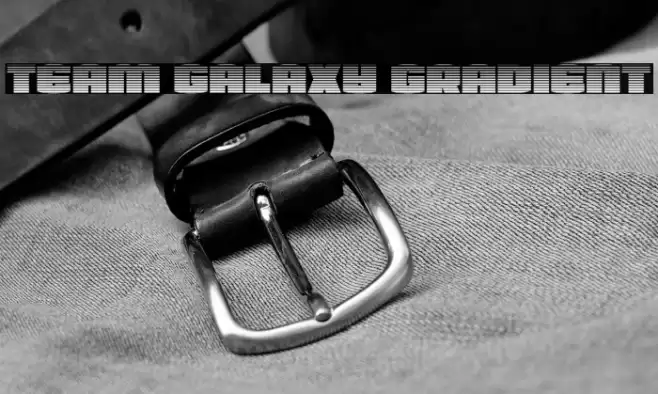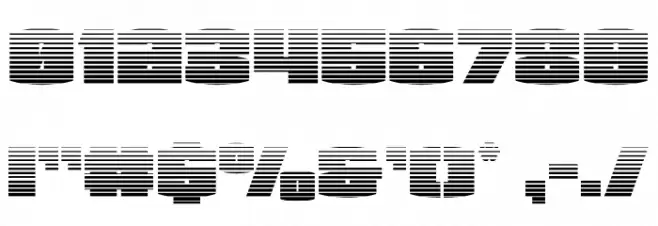
Team Galaxy Gradient Font
Team Galaxy Gradient Description
This font features a bold, futuristic design with a unique gradient effect created by horizontal lines that form each character. The letters are wide and blocky, giving them a strong presence. The gradient lines create a sense of movement and depth, making the font highly dynamic and visually striking. The uppercase and lowercase letters maintain a consistent style, ensuring uniformity across different text applications. Numbers and special characters are also included, each designed with the same gradient effect, enhancing the font's cohesive look. The overall style is modern and innovative, suitable for projects that require a bold and eye-catching typeface.
A bold, futuristic font with a gradient line effect, offering a dynamic and modern look from Uncategorized fonts.
- Proposed Projects: Ideal for sci-fi themed projects, technology branding, video game titles, and futuristic posters.
- Width: Expanded